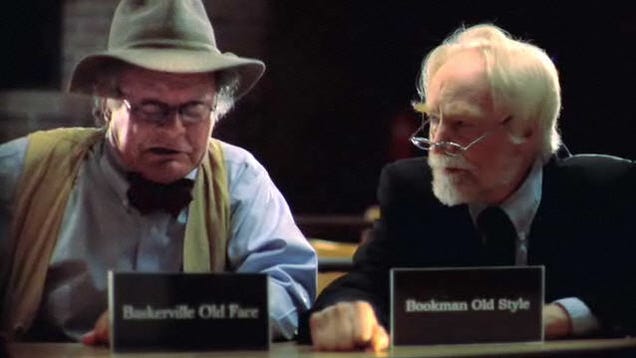
Font Conference Shows Your Fonts as People, and They Are Ridiculous
In a world where fonts are people, Times New Roman is king. But also, Wingdings is annoying and talks in gibberish, Arial Narrow is a racist, and Futura is a sexy lady from the future. How awesome is this?